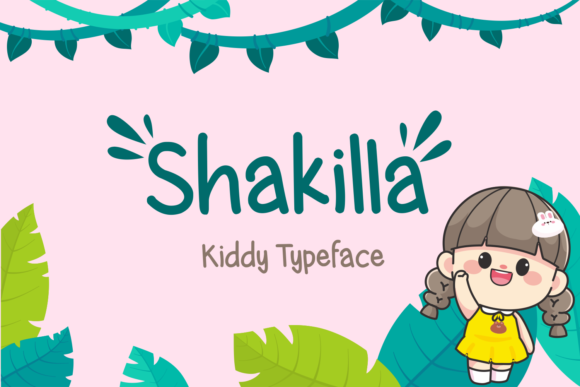
Get ready to add a touch of whimsy and delight to your creative projects with Shakilla Font, the ultimate handwritten kid's fun font. Step into a world of enchanting designs and let your imagination run wild with this font that's perfect for adding a personal touch to books, greeting cards, posters, branding, logos, and more.
With Shakilla Font's playful and charming strokes, your creations will come alive with a sense of joy and wonder. Whether you're creating a captivating children's book, designing a playful logo, or crafting heartfelt greeting cards, Shakilla Font will make your words dance off the page.